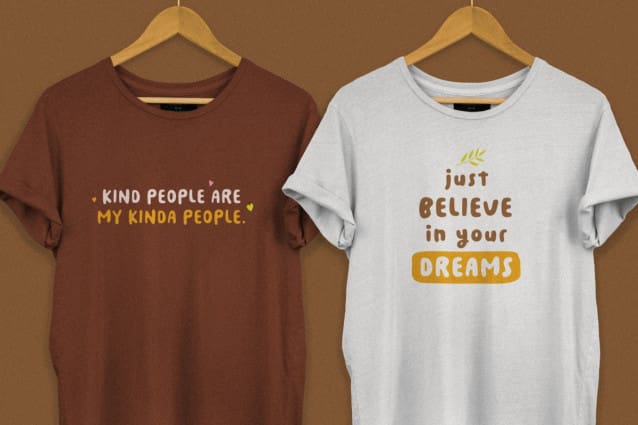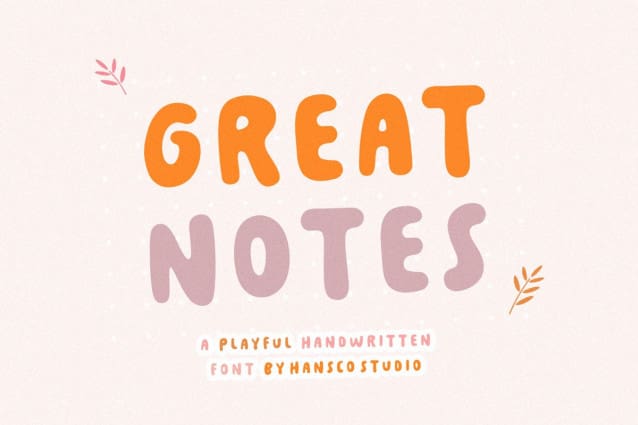
Great Notes Font
Great Notes font is a simple, modern, playful and natural handwritten sans serif font. This font is perfect for creating logo, watermark, branding, wedding invitation, quote, tagline, or anything else. Let’s make something beautiful project with this.